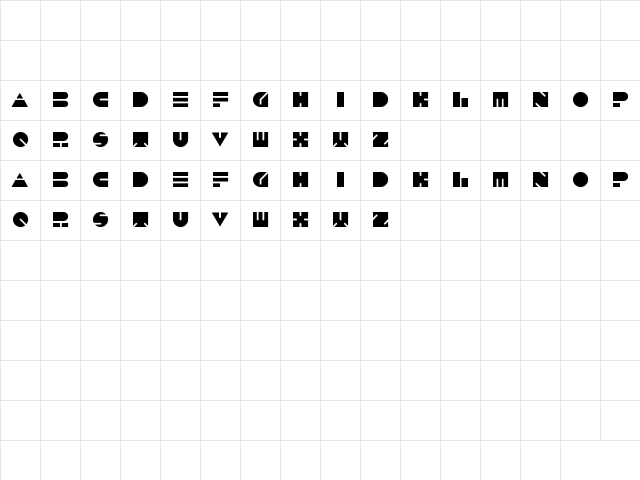
PUSH THE BUTTON Regular Free Font
PUSH THE BUTTON Regular
Complete PUSH THE BUTTON Regular glyph index. Displaying only characters natively supported by PUSH THE BUTTON Regular font.
Design Context for PUSH THE BUTTON
PUSH THE BUTTON is a composed and adaptable typeface that performs quietly and consistently across a wide range of design contexts.